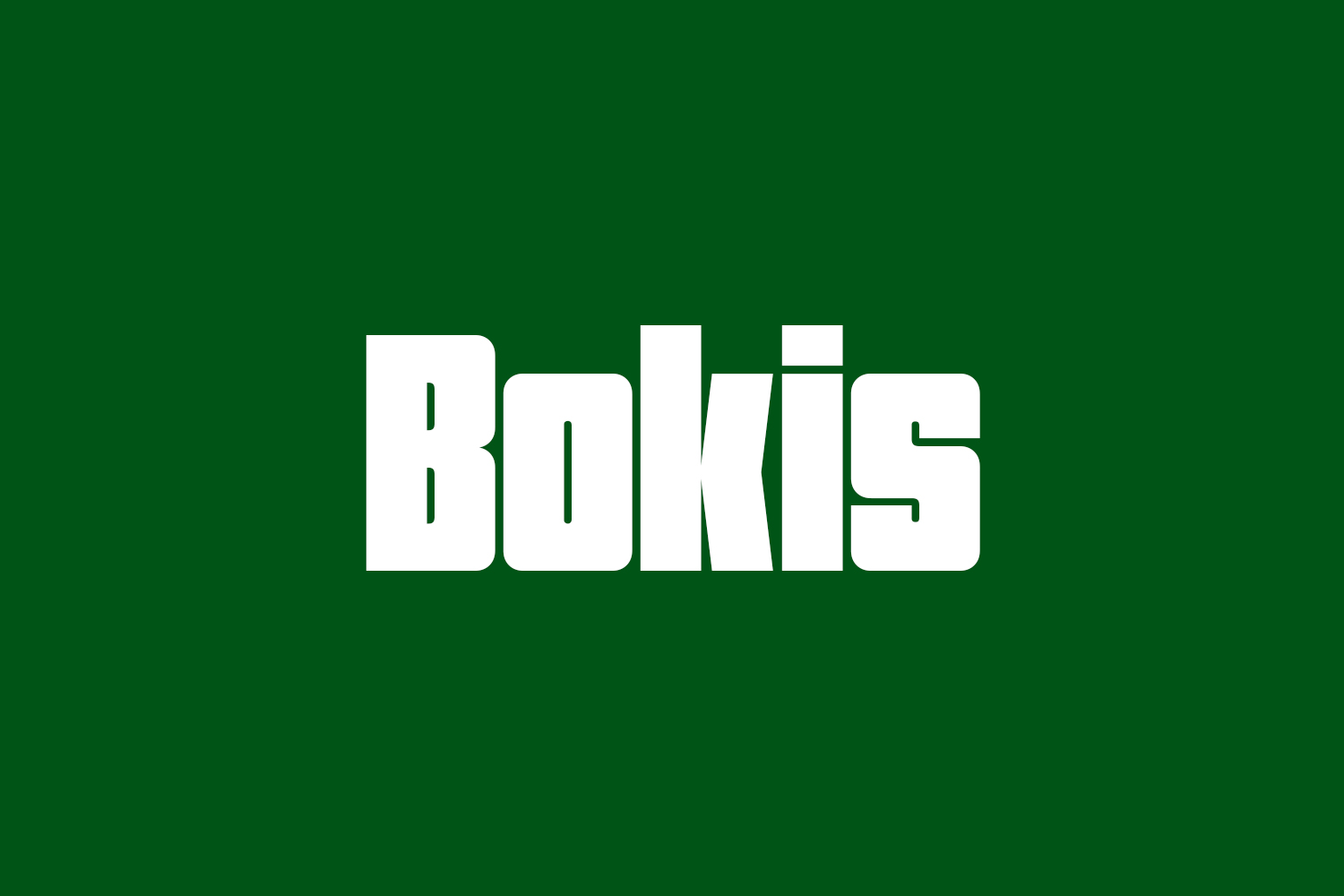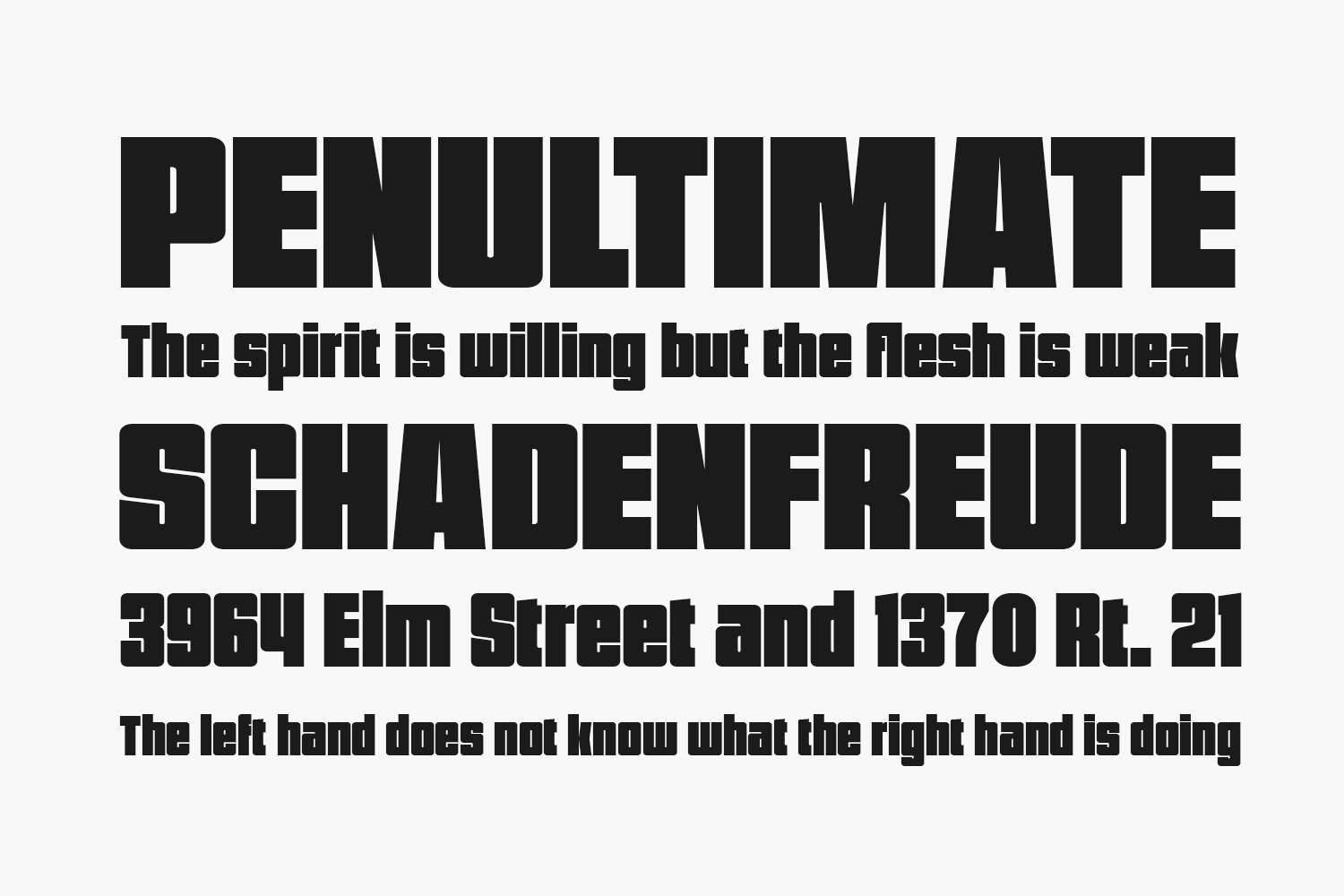
Introducing Bokis Free Font Family, a breathtaking sans-serif typeface meticulously crafted for captivating visual displays. With its striking and courageous aesthetic, this font effortlessly enhances an array of creative ventures, including card designs, brand identities, labels, and beyond. Unleash the power of Bokis to amplify your artistic endeavors and leave a lasting impression. Bokis Free Font Family is free for personal or commercial use.